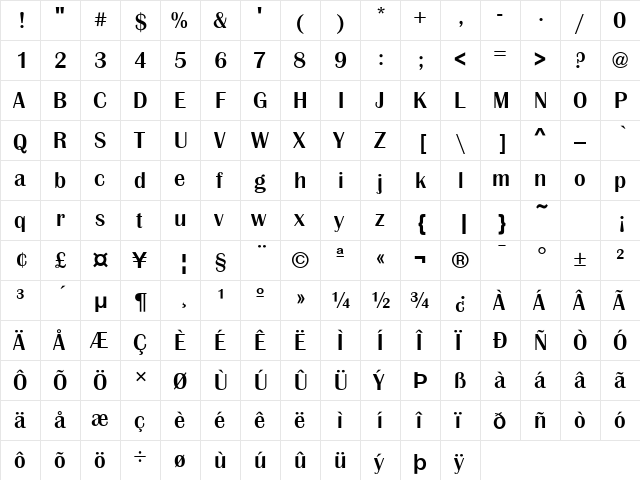
Britannic Medium BOLD Font Preview
Britannic Medium BOLD
Britannic Medium BOLD Font Details
Design Context for Britannic Medium Typeface
Britannic Medium takes a measured approach to typography — its balanced proportions and neutral character make it a reliable workhorse for both digital and print work. Its bold stroke weight gives it real presence on the page.